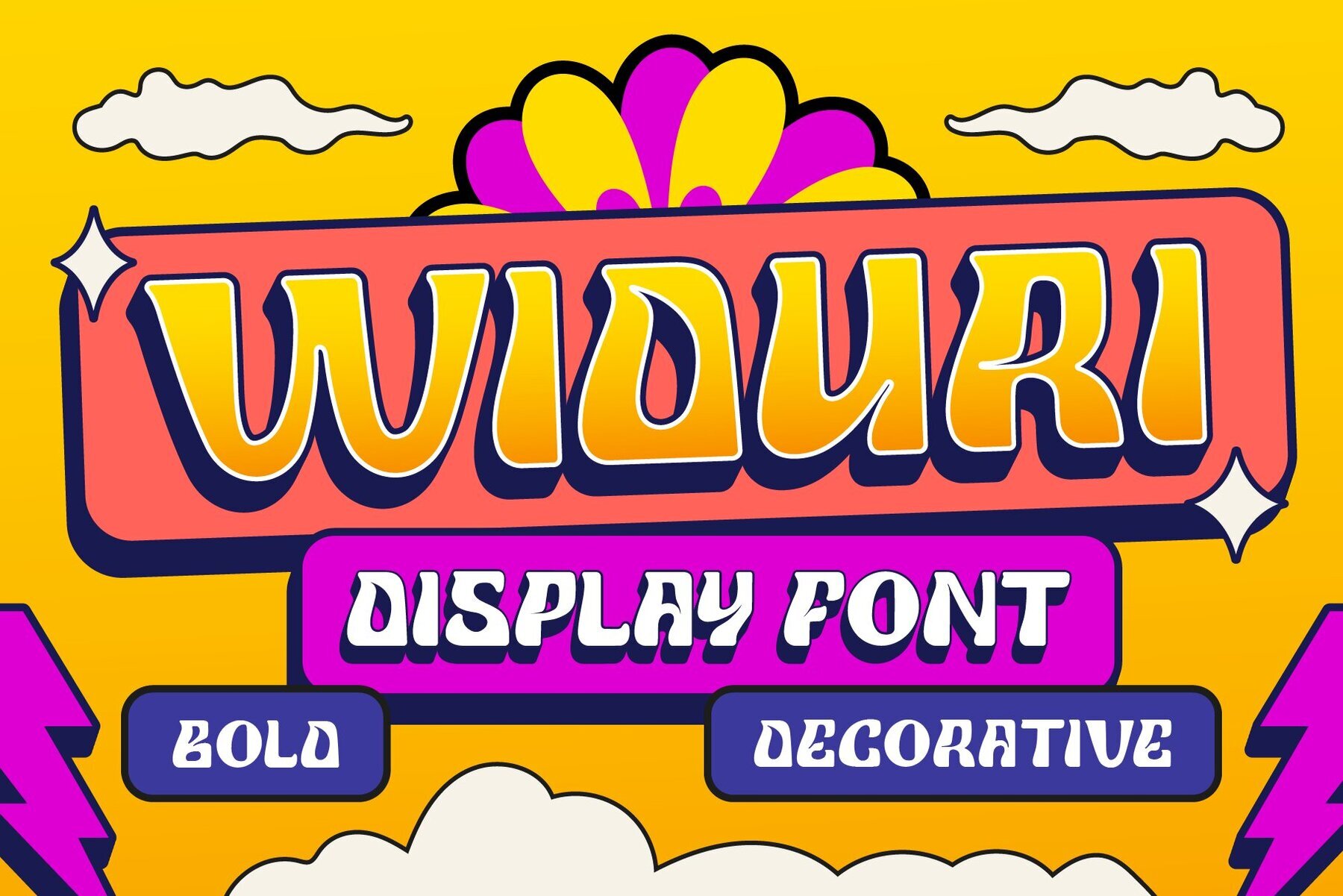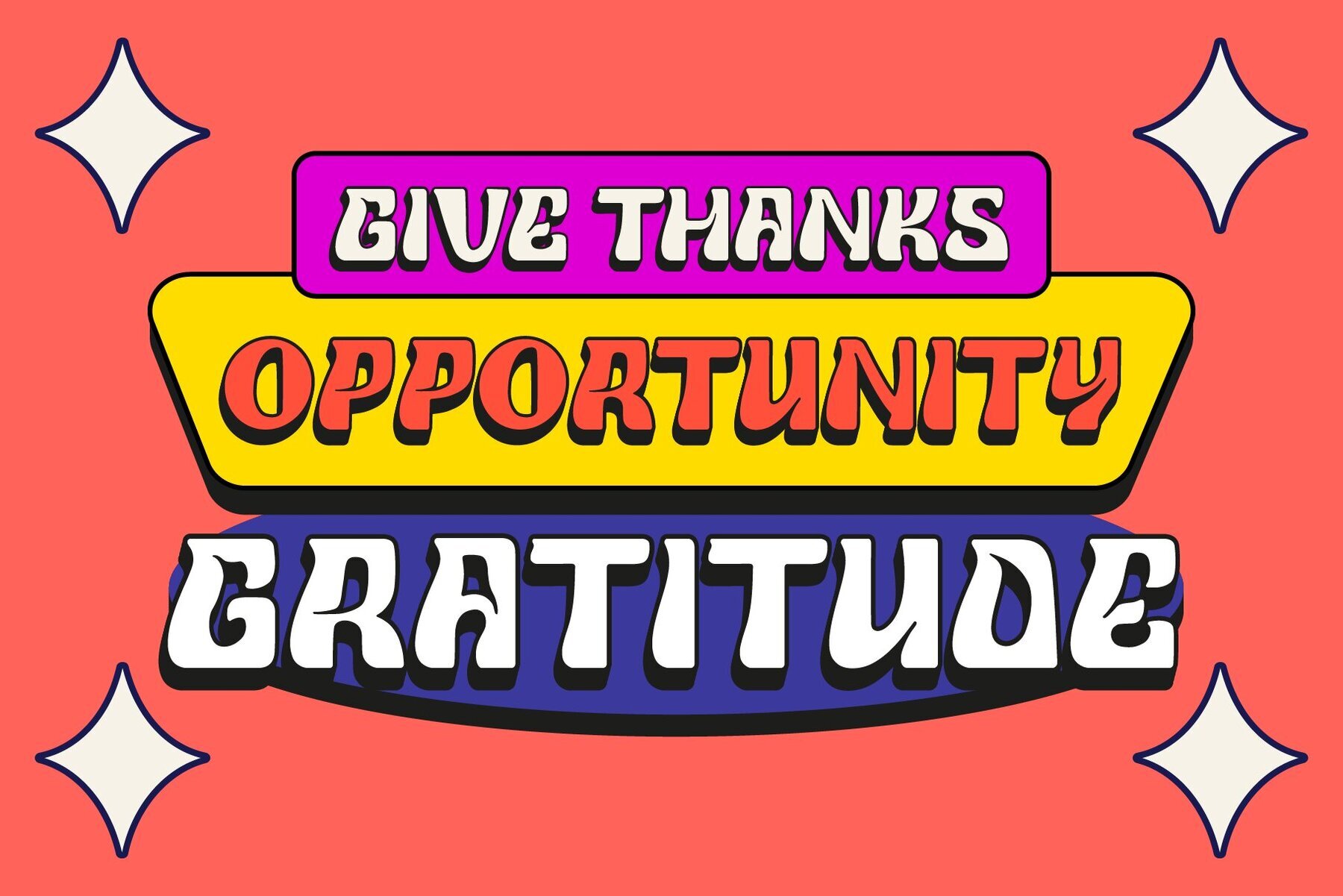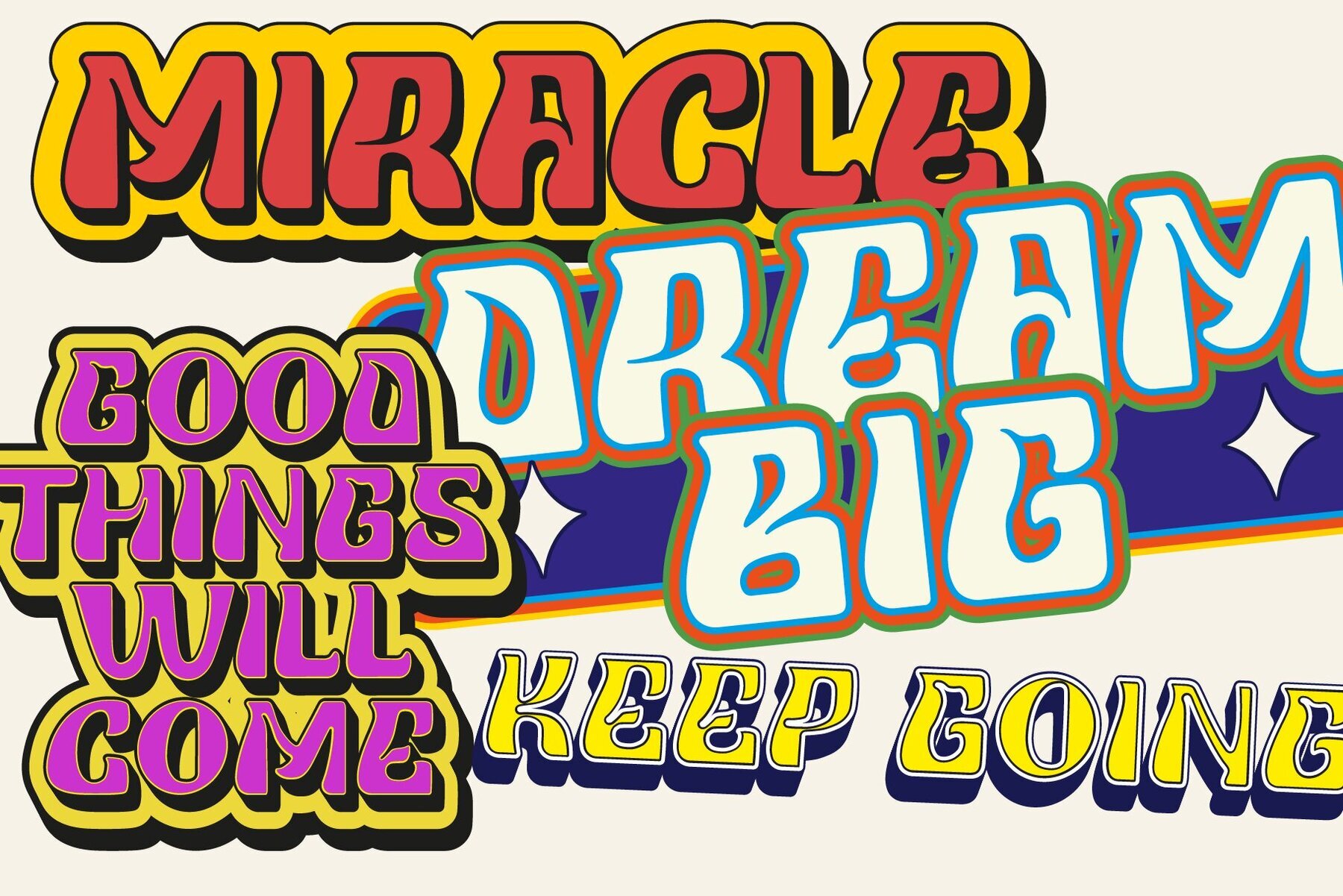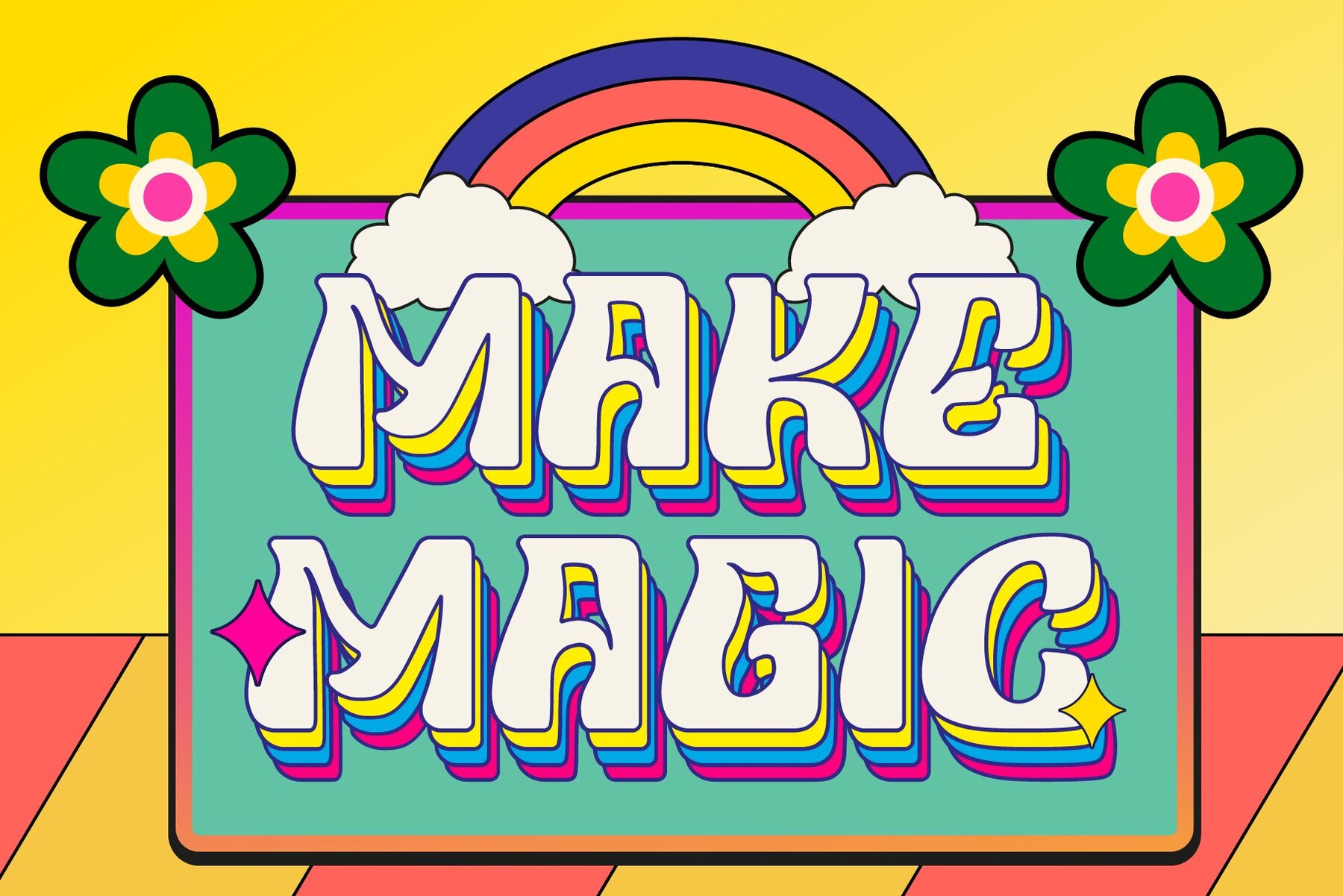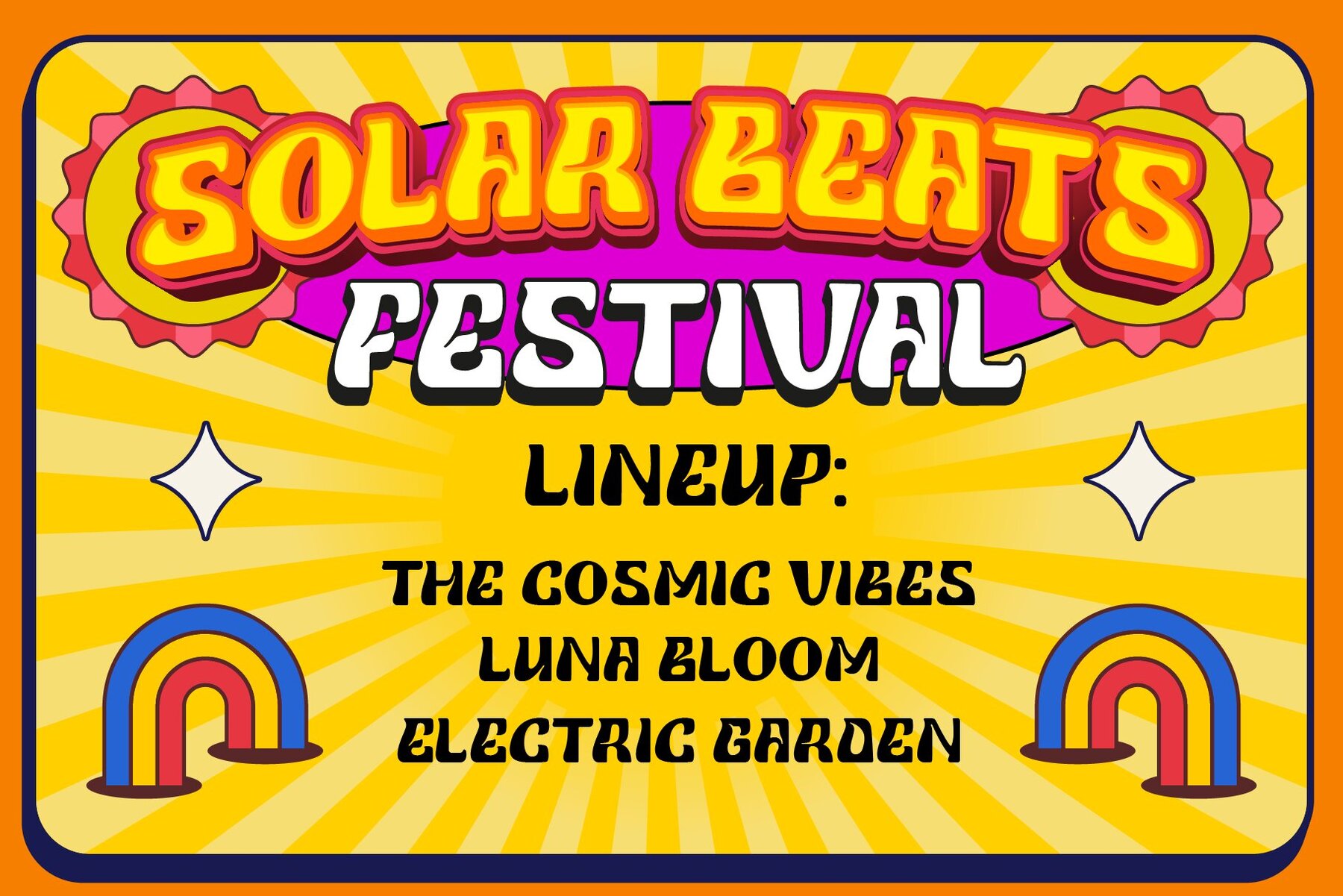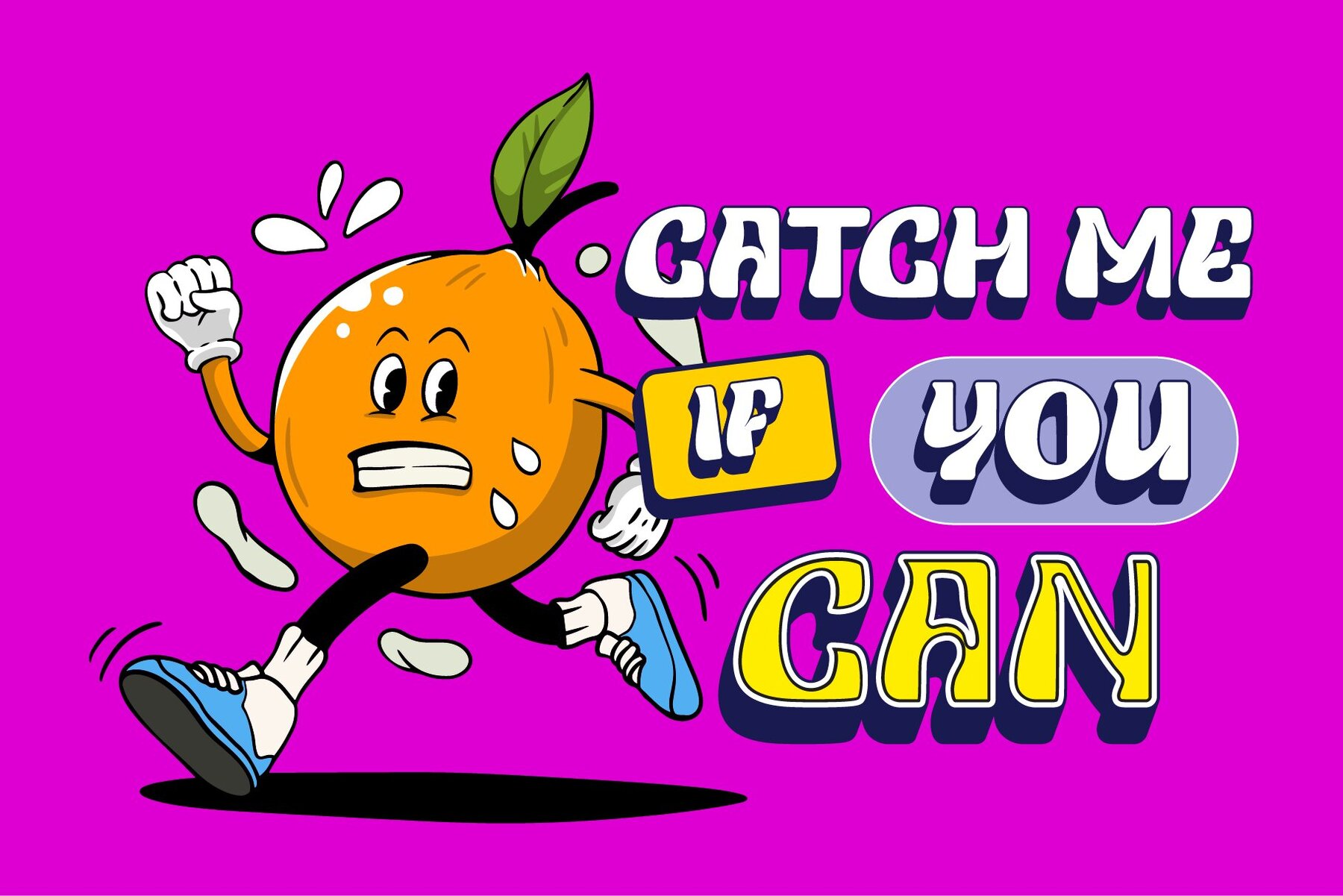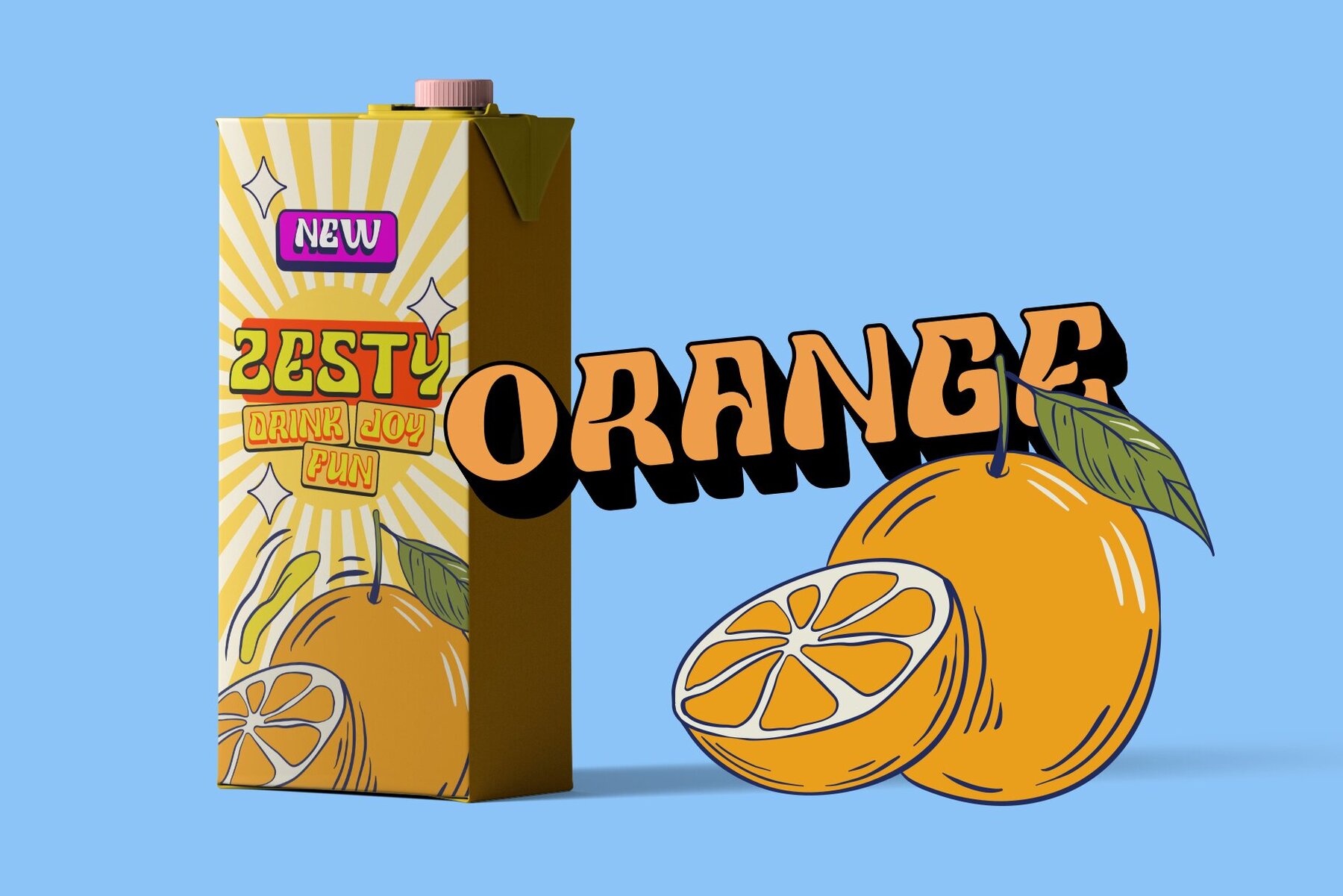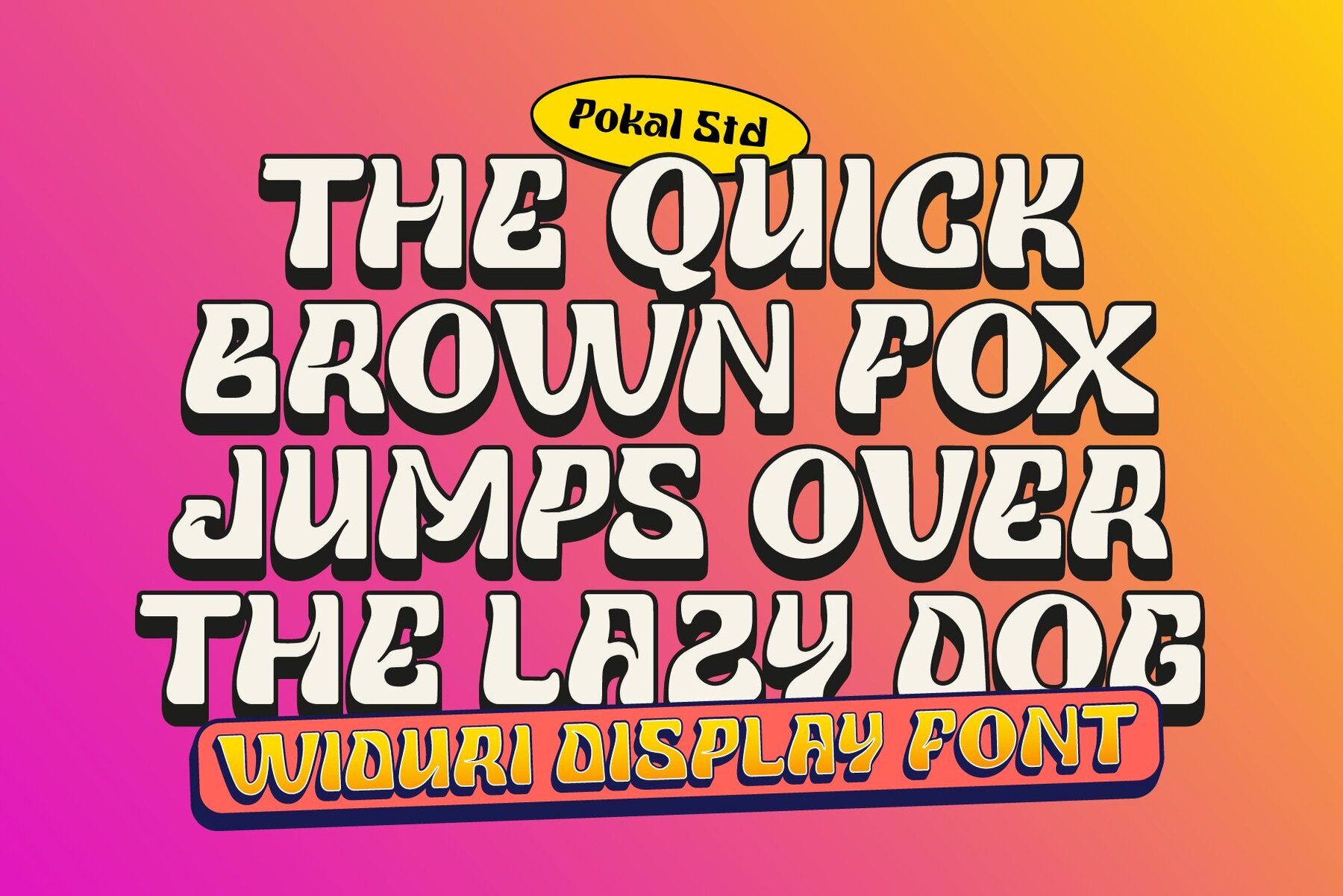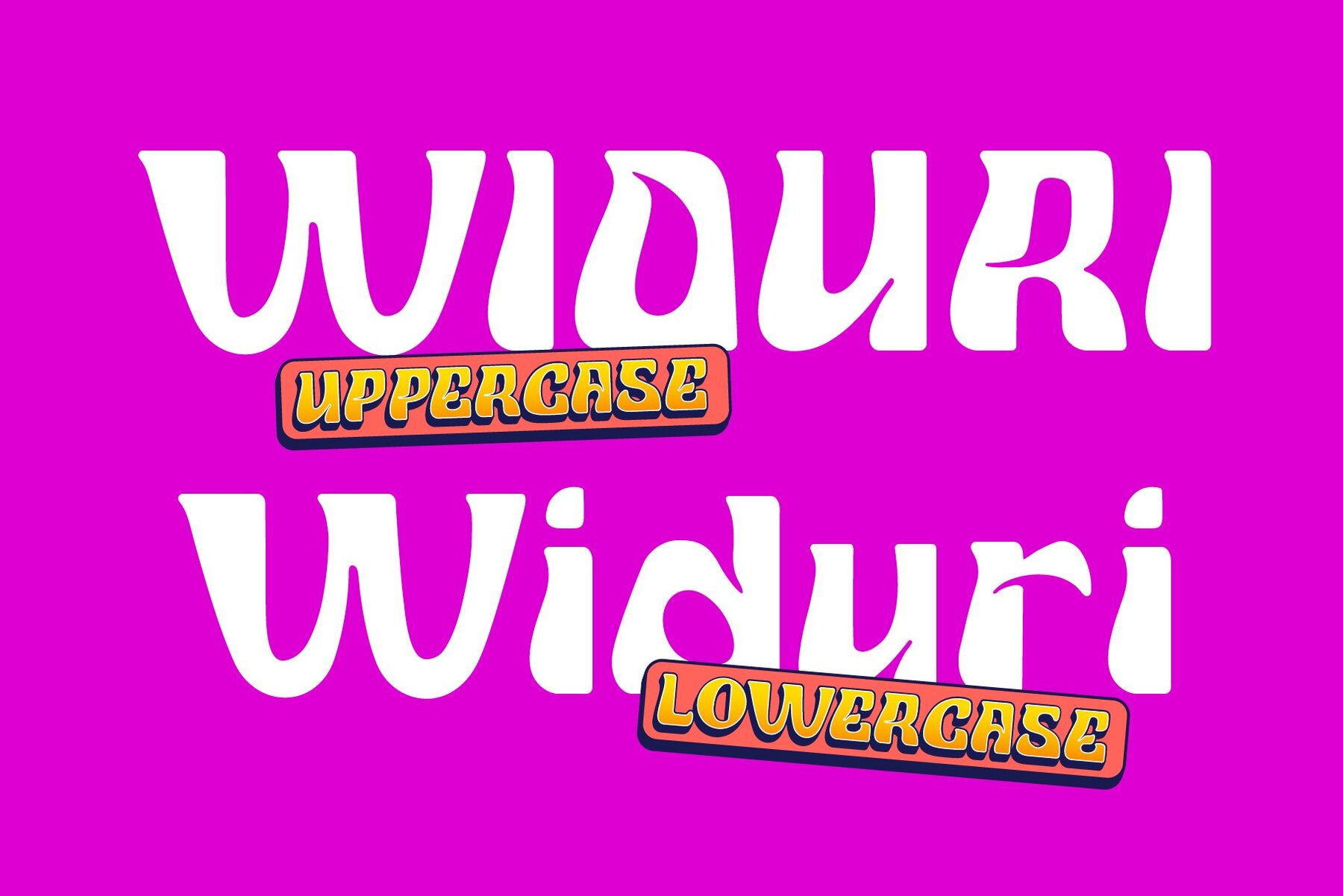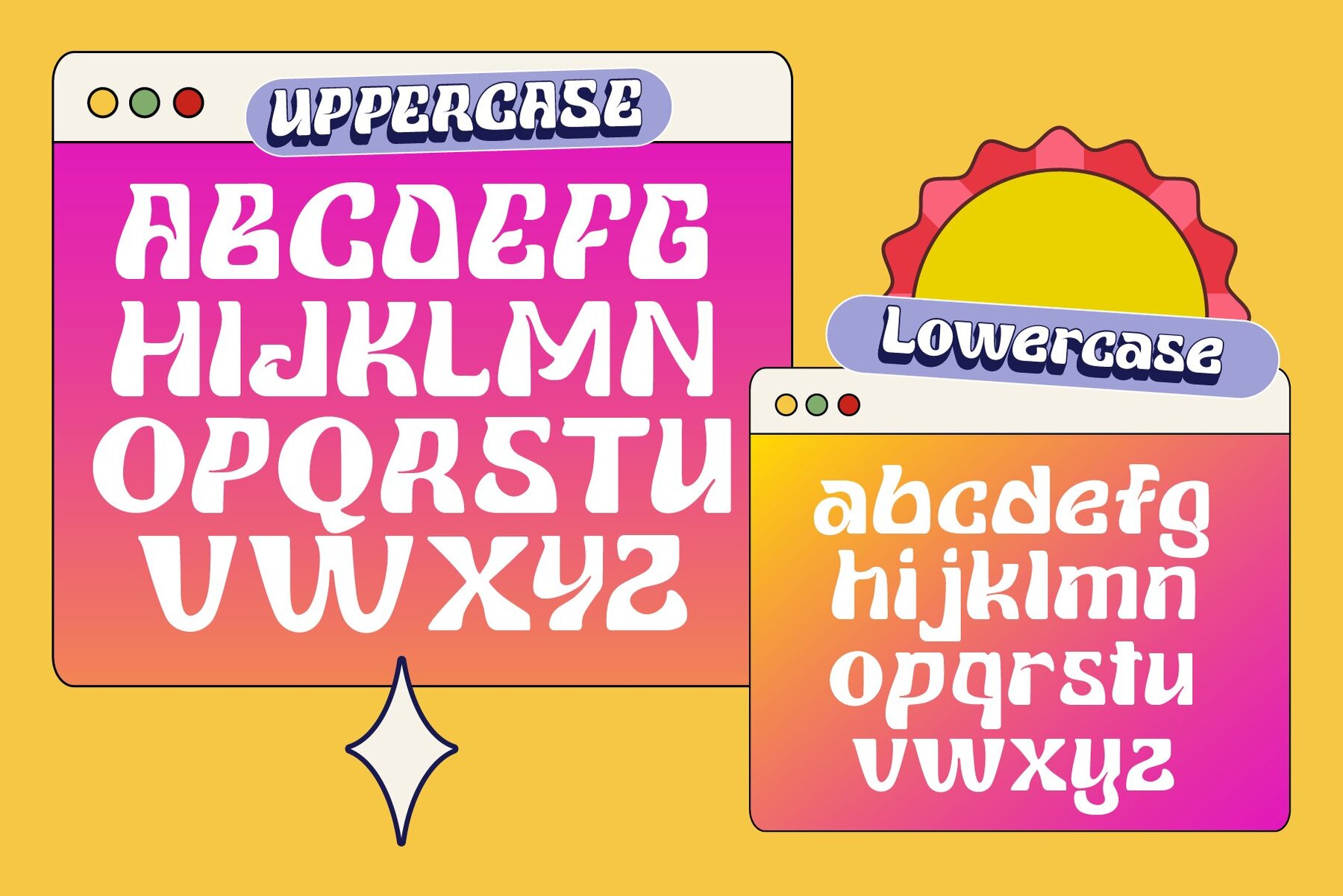
Widuri Font
Widuri Regular
Widuri offers a bold and playful take on classic 70s design. Inspired by psychedelic posters and vintage signage, this font brings authentic retro energy to contemporary projects. Thick curves and decorative details create a vibrant presence for any headline, poster, or logo. Widuri suits festival promotions, music artwork, expressive branding, product packaging, and standout social media assets. Its joyful personality adds character to feel-good quotes, retro logos, and everything in between. Designed for those who appreciate nostalgia with a modern twist, this typeface delivers unmistakable style and positivity in every letter.Widuri Retro Display Font